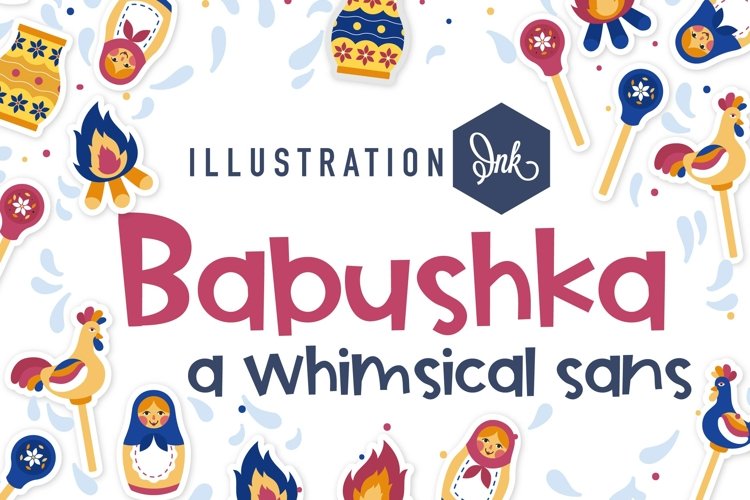
This casual, hand-crafted print is a bit whimsy and youthful.
A hand-crafted font is a font that is designed to feel unique and crafty. It is often used for invitations, greeting cards, and other items. Hand-crafted fonts are typically informal and they can be used for a variety of purposes.